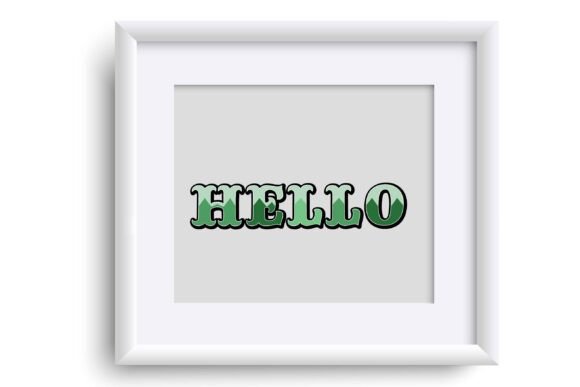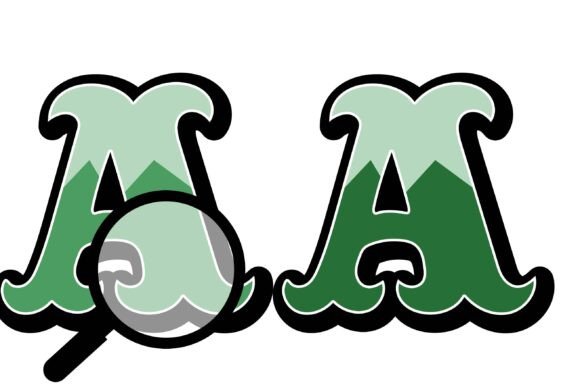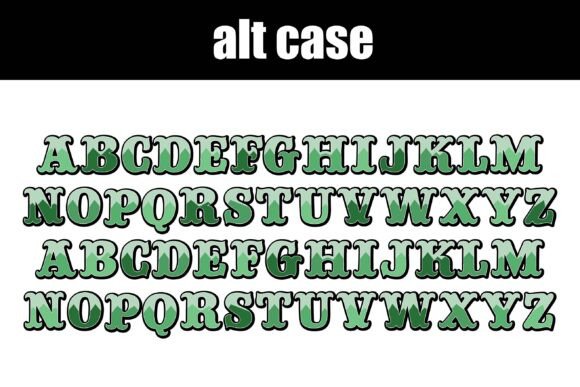
Introduction to Jolly Irish Jig Font Font
Fonts play a crucial role in design, and the Jolly Irish Jig Font font is a typeface that brings both character and versatility to any project. Whether you’re working on a branding project, a website, or a print design, the Jolly Irish Jig Font font offers a unique style that can elevate your work.
This full-color font features a circus-style font in a green color palette.
There is an alt version you can access through your systemβs character map that contains additional colors of all the letters This font works best for titles, displays, posters and more.
Key Features of Jolly Irish Jig Font Font
Why Choose Jolly Irish Jig Font Font?
The Jolly Irish Jig Font font is more than just a typeface β it’s a design tool that helps you communicate your message with style and clarity. Its unique character set and versatile design make it suitable for a wide range of applications, from elegant invitations to bold headlines.
With its carefully crafted letterforms and balanced proportions, the Jolly Irish Jig Font font ensures readability and visual appeal across all mediums.
What makes Jolly Irish Jig Font font special?
The Jolly Irish Jig Font font stands out with its unique design, exceptional readability, and versatility across various design applications.